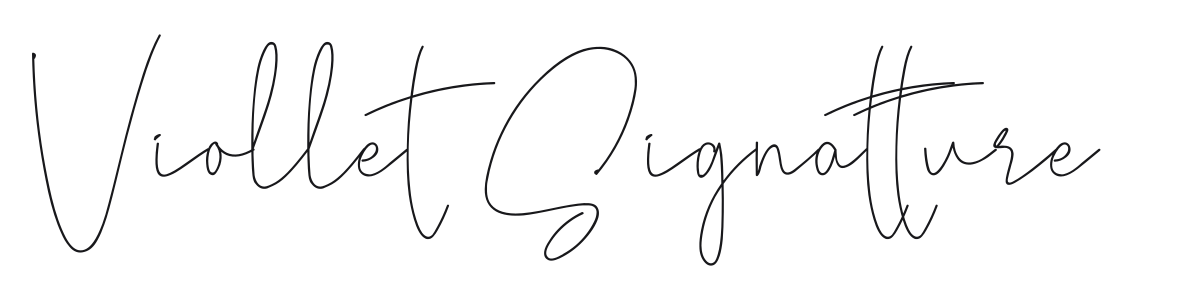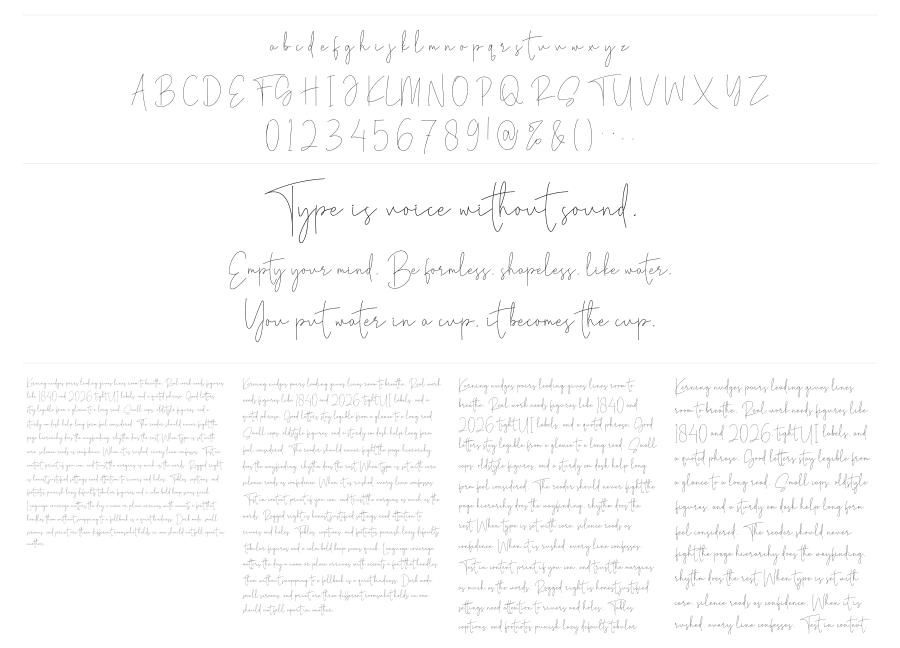
Viollet Signatture
Viollet Signatture is an ultra-thin formal script with long sweeping strokes and flowing connected characters drawn in a copperplate-inspired style. The delicate weight and airy spacing give it a refined, handwritten feel that reads as genuinely personal rather than mechanical. It suits wedding stationery, luxury branding, and any context where elegance is the primary message.